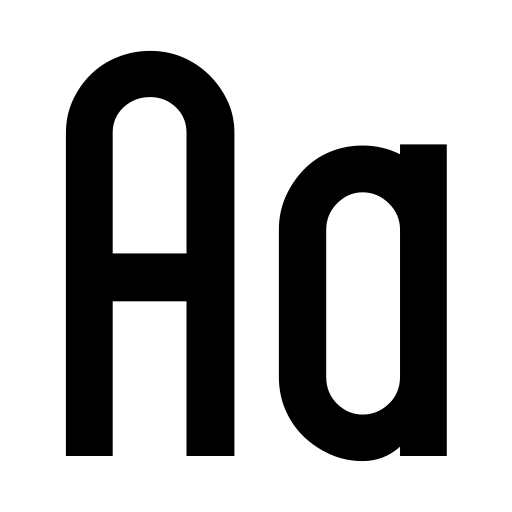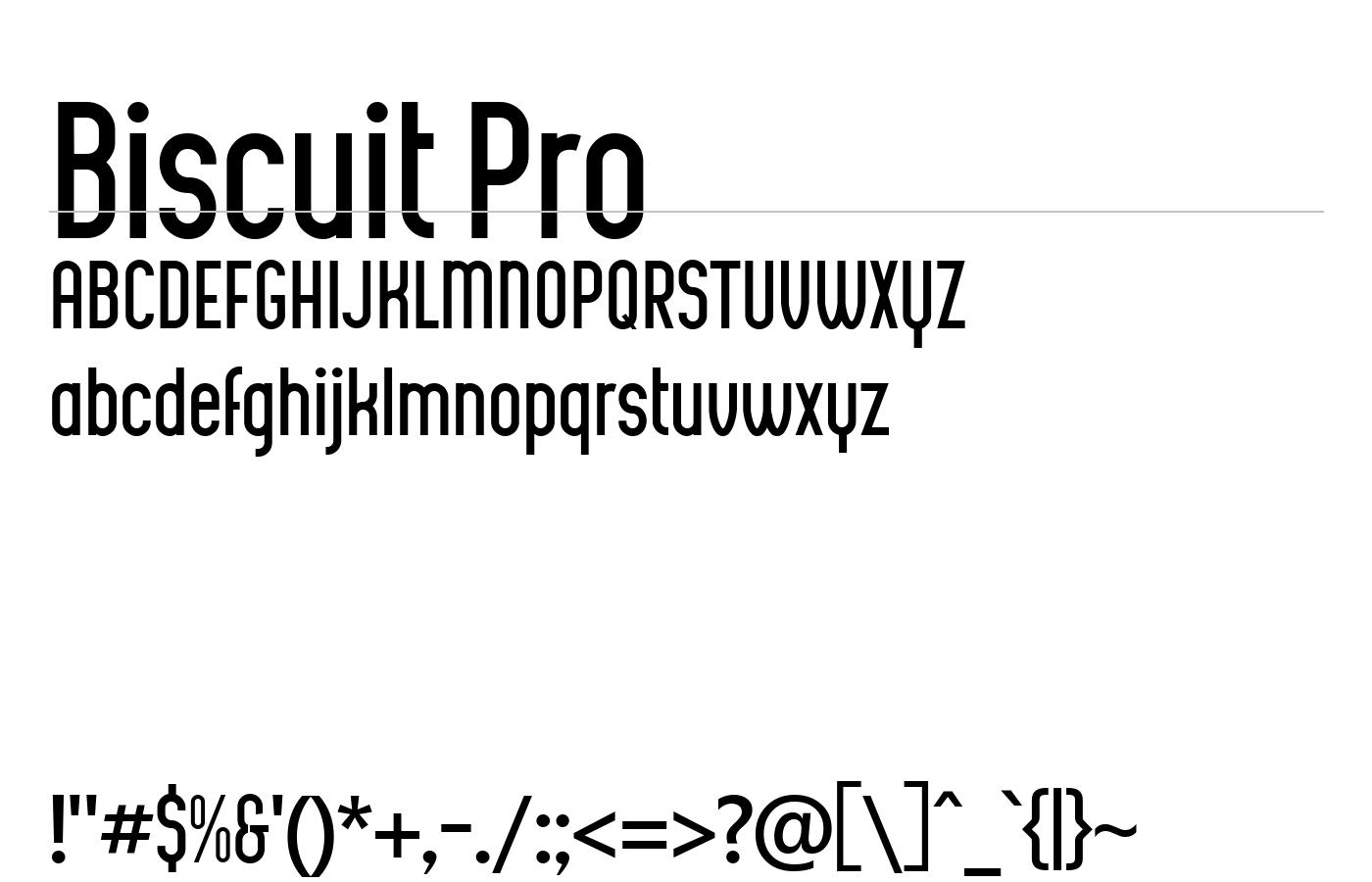
Biscuit Pro is a narrow, tall sans serif font with a clean and modern appearance. Its consistent stroke weight and tight spacing give it a sleek, contemporary feel, making it ideal for headlines, branding, and editorial design where a distinctive yet minimalistic style is desired. This font works particularly well for projects looking to convey sophistication and clarity in a compact space.
Biscuit Pro Font
About Biscuit Pro Font